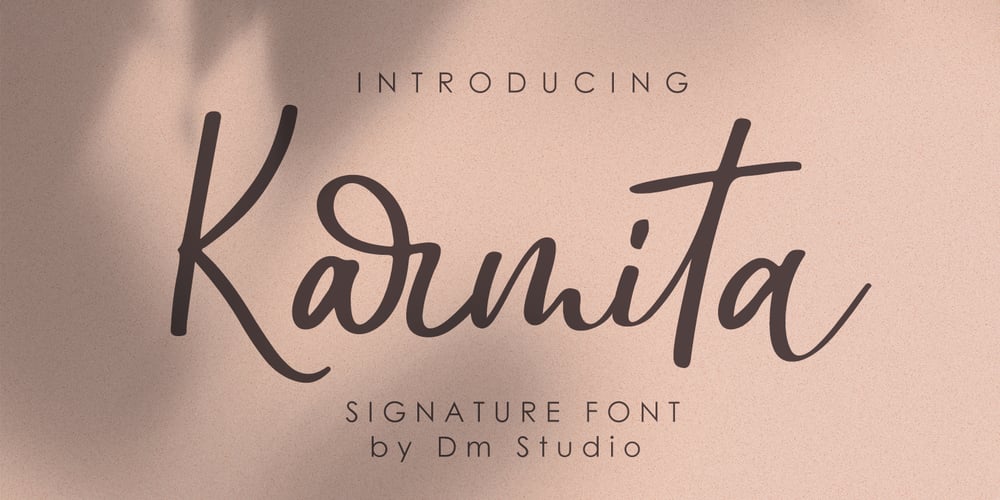
Karmita Font Family was designed by Dimas Prasetyo and published by DM Studio. Karmita contains 1 styles and family package options. Karmita Signature Font is a sophisticated and elegant typeface that emulates the natural flow of a handwritten signature. Perfect for branding, logos, invitations, and upscale designs, this font adds a touch of class and authenticity to your projects. With its stylish and fluid letterforms, Karmita Signature Font brings a unique and personal touch to any design.Features: Sophisticated and Elegant Design: The Karmita Signature Font features stylish and fluid letterforms that emulate a natural handwritten signature, adding a touch of class and authenticity to your designs. Versatile Application: Ideal for branding, logos, invitations, business cards, and upscale designs, providing a unique and personal touch to your projects. High-Quality Graphics: Detailed and elegant letterforms that enhance the visual appeal of your designs. Uppercase and Lowercase Letters: Includes both uppercase and lowercase letters, providing creative flexibility. Ligatures and Special Characters: The font offers ligatures and special characters to enhance the visual interest and uniqueness of your typography. Punctuation and Symbols: Comprehensive set of punctuation marks, numerals, and symbols for consistent and versatile use. Easy Installation and Use: Simple installation on both Windows and Mac operating systems. Seamlessly integrates with popular design software such as Adobe Photoshop, Illustrator, and InDesign, ensuring a smooth and efficient design workflow.